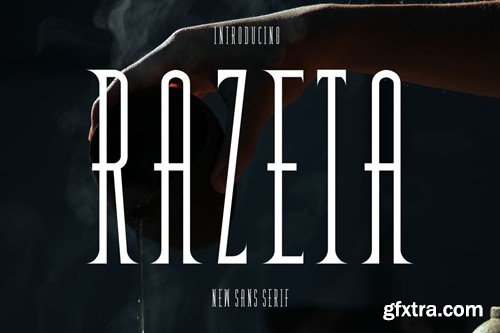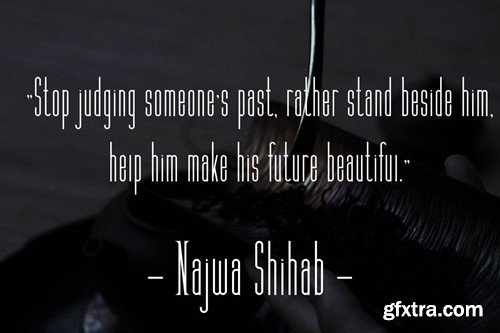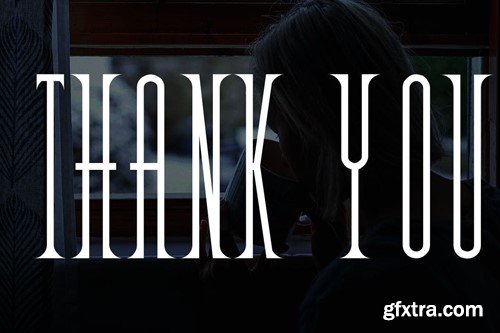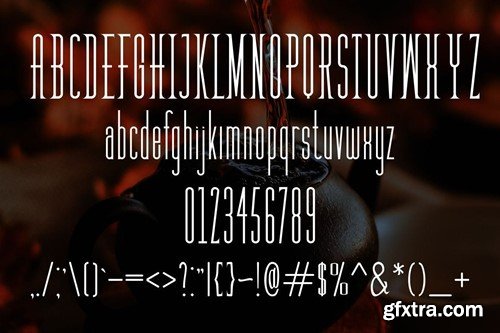
Razeta Font
• Lavenia Font is a modern and authentic font. *
• Perfect for both professional and branding needs of a product. *
• This font is suitable for any branding project like quotes, logo, blog header, poster, banding, letter, invitation, stationery, *
• etc... Designed as a versatile and flexible that can be used on a range of projects and mediums. *
• outstanding in a wide range of contexts. *